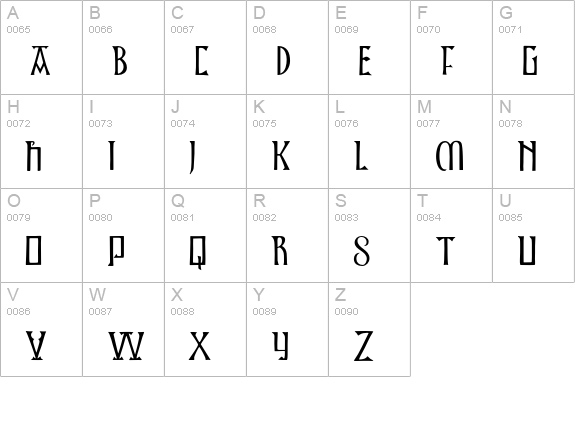
KellsSquare Font Details
KellsSquare font is a stunning display typeface that combines classic elegance with a modern twist. Its square, geometric shapes give it a unique and contemporary look, making it perfect for eye-catching headlines, posters, logos, and more. The clean lines and precise angles of KellsSquare font make it incredibly versatile, allowing it to seamlessly fit into any design project. Whether you're working on a minimalist layout or a bold and dynamic design, this font will effortlessly add a touch of sophistication and style. One of the best things about KellsSquare font is that it is free! That's right, you can download this exceptional font for absolutely no cost at FontsMarket.com. With just a few clicks, you'll have access to this incredible typeface and be ready to take your designs to the next level. KellsSquare font comes in a variety of weights, from light to bold, giving you even more flexibility and creativity in your designs. Its extensive character set includes uppercase and lowercase letters, numbers, punctuation marks, and special characters, ensuring that you have everything you need to create captivating and professional-looking designs. Whether you're a seasoned graphic designer or just starting out, KellsSquare font is a must-have in your font collection. Its versatility, elegance, and the fact that it is freely available to download at FontsMarket.com make it an exceptional choice for any design project. So why wait? Start creating stunning designs with KellsSquare font today!